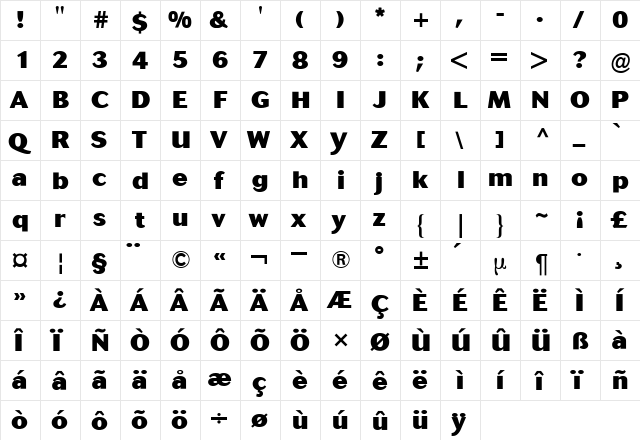
Cosmos BQ Bold
Design Context for Cosmos BQ Typeface
Cosmos BQ is a composed and adaptable typeface that performs quietly and consistently across a wide range of design contexts. The heavy weight commands attention and anchors typographic hierarchies.